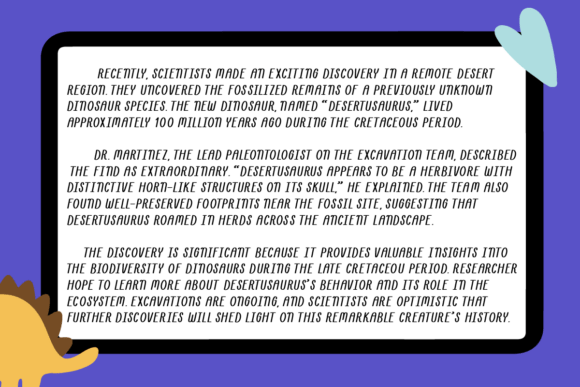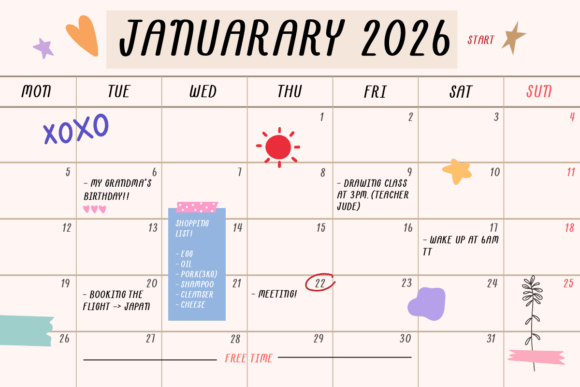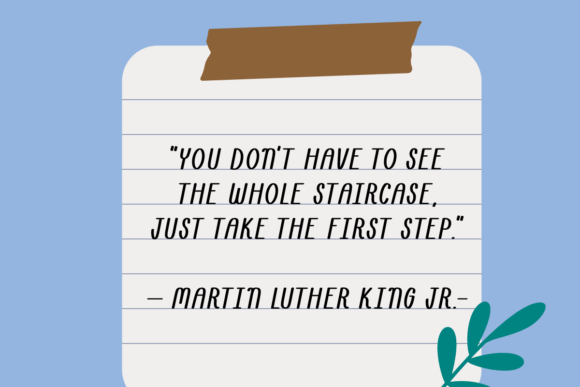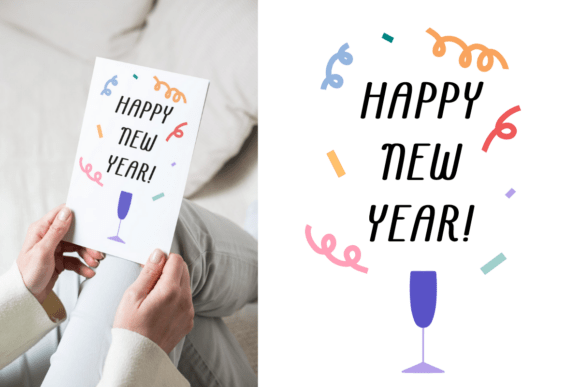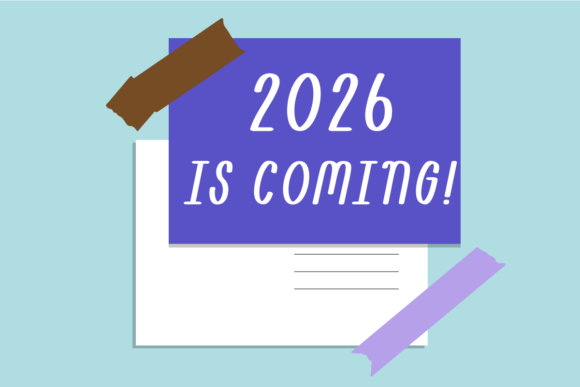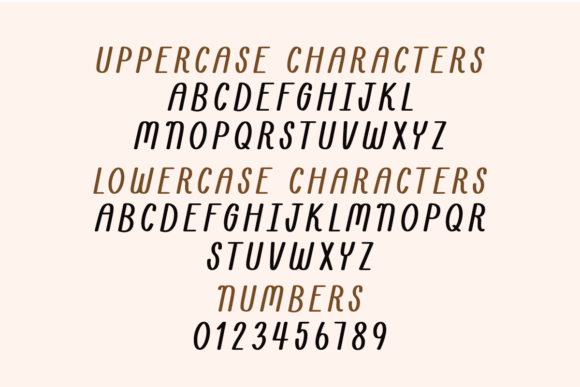
Introduction to Journal Time Font
JOURNAL TIME is a neat and cute handwritten font.
Perfect for everyday note taking such as writing a diary or notes, creating posters, logos, greeting cards, packaging, and so much more .
Key Features of Journal Time Font